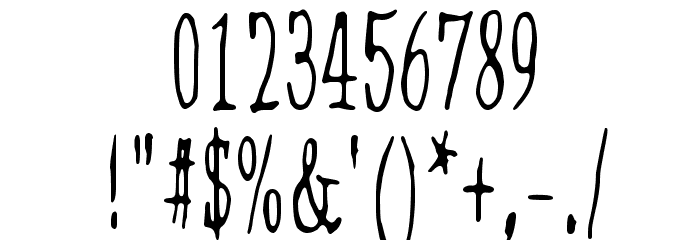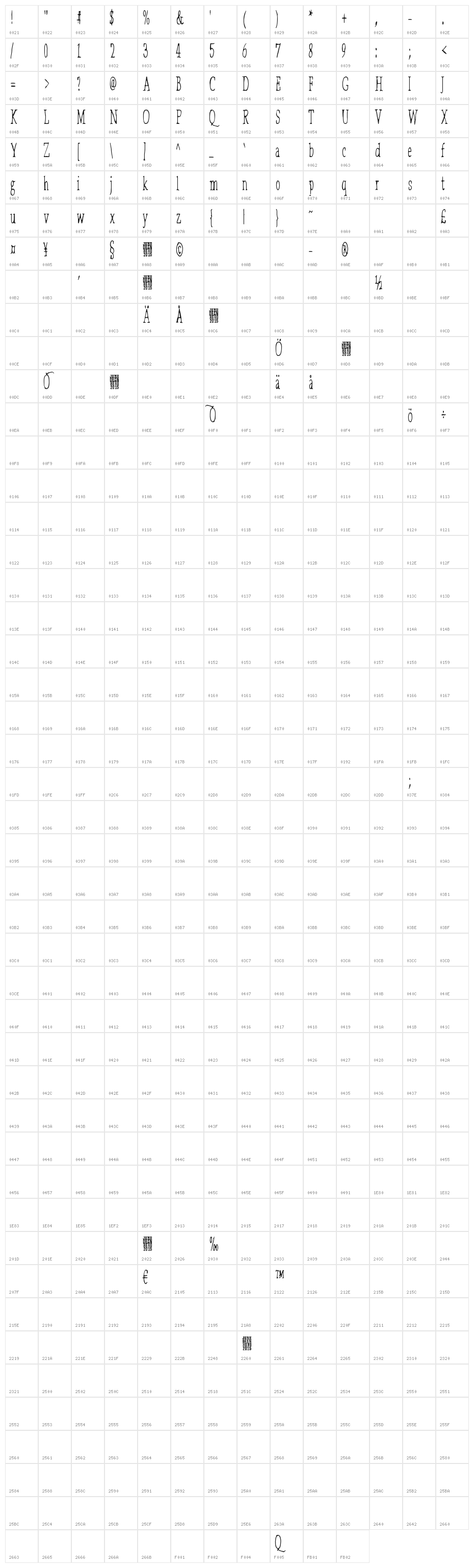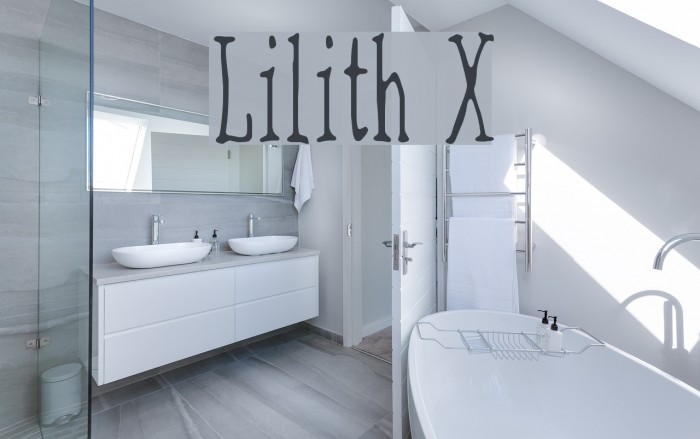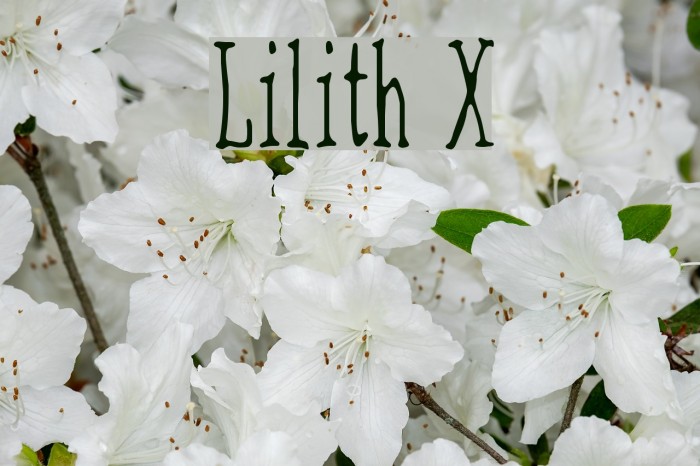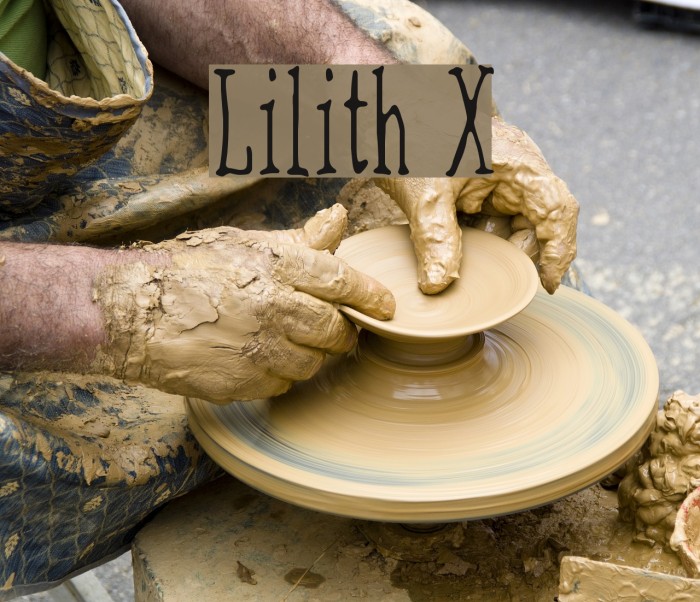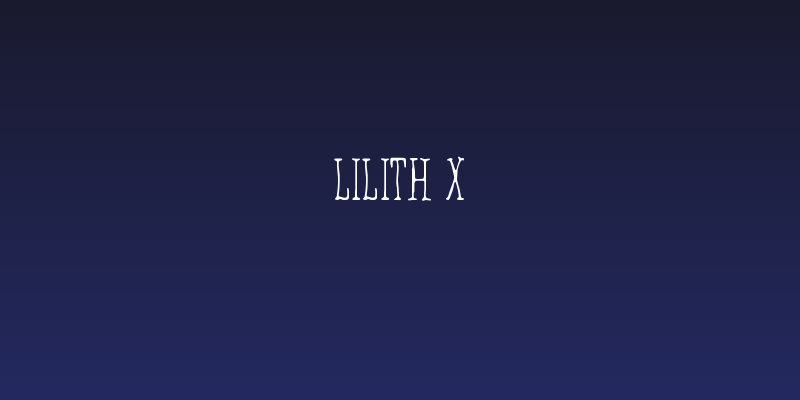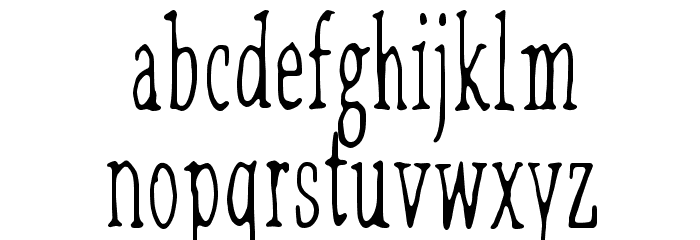
Lilith X Font
Lilith X Description
This font features a unique and artistic style, characterized by its irregular and slightly whimsical letterforms. The uppercase letters are tall and narrow, with varying stroke widths that give them a hand-drawn appearance. The lowercase letters maintain this playful aesthetic, with some characters having exaggerated curves and angles. The numbers and special characters are consistent with the overall design, adding to the font's quirky charm. This font's distinctive style makes it stand out, offering a creative and informal vibe.
LILITH-X UPPERCASE
LILITH-X LOWERCASE
LILITH-X OTHER CHARS
| Use Case | Logos, Posters, Invitations |
| Proposed Projects | Ideal for creative projects such as posters, invitations, and artistic branding that require a playful and unique touch. |